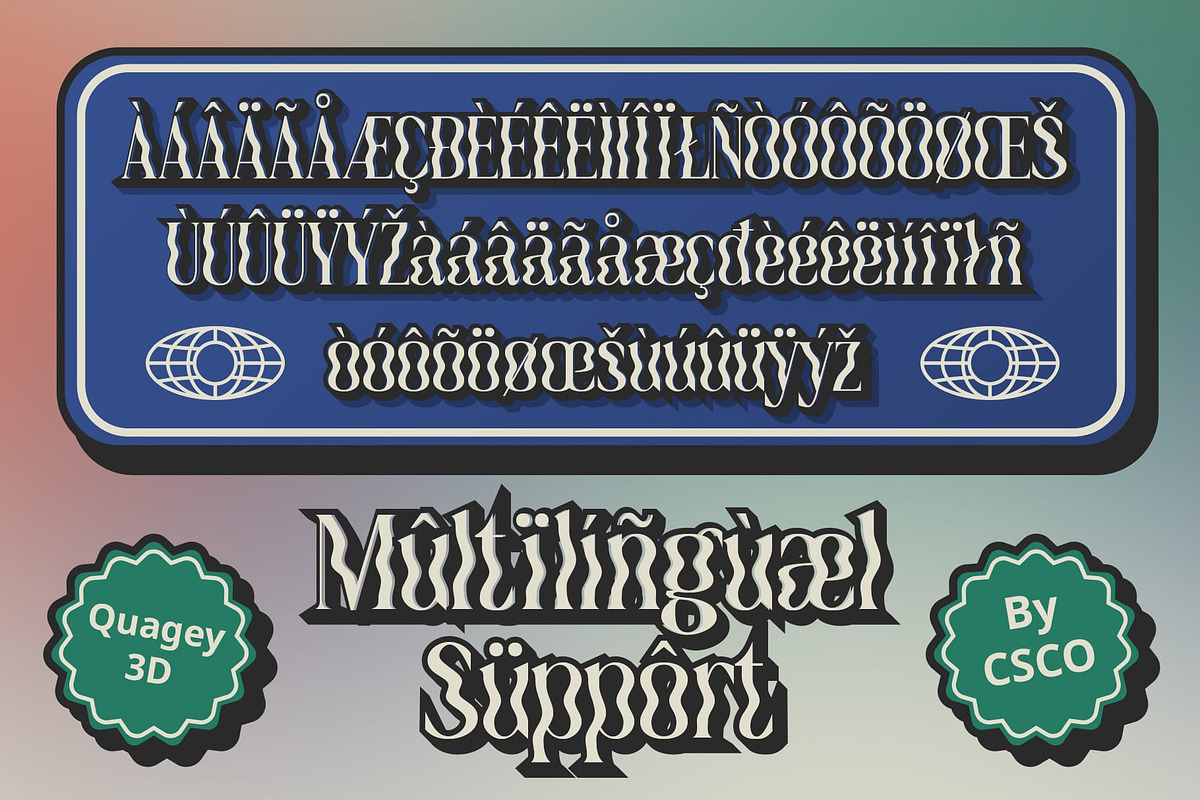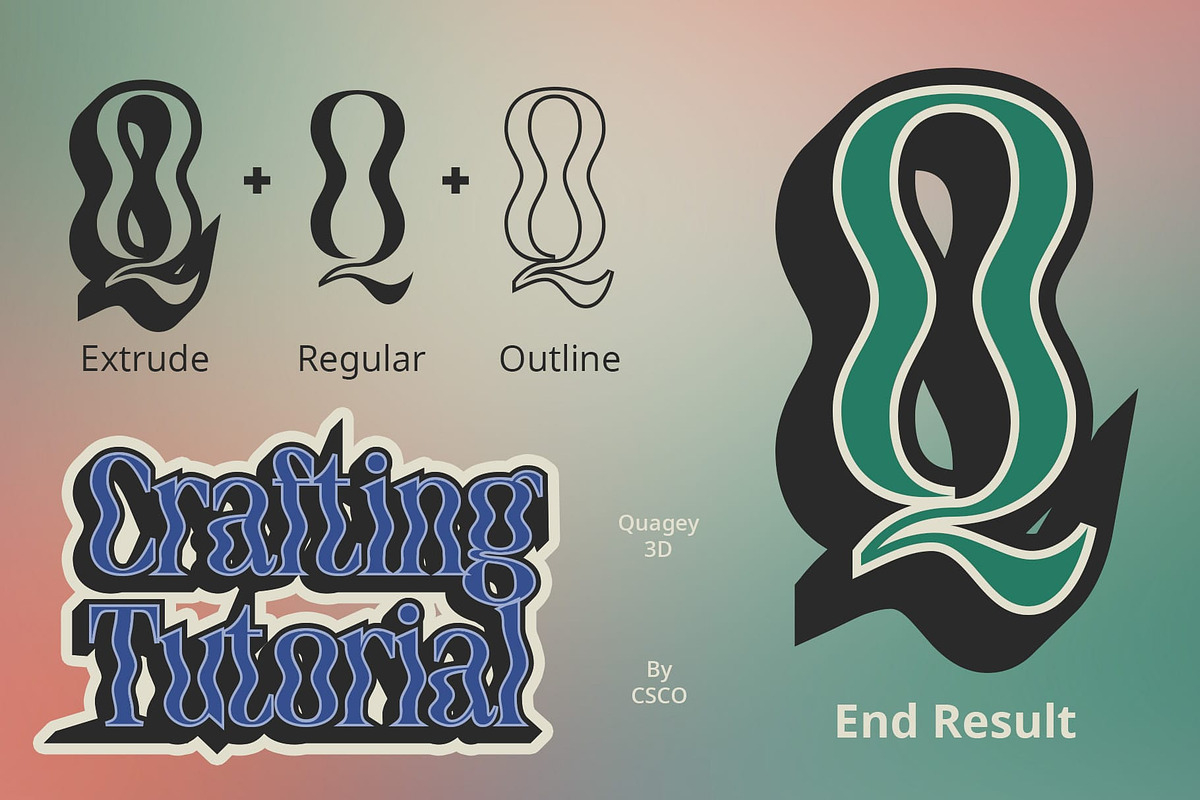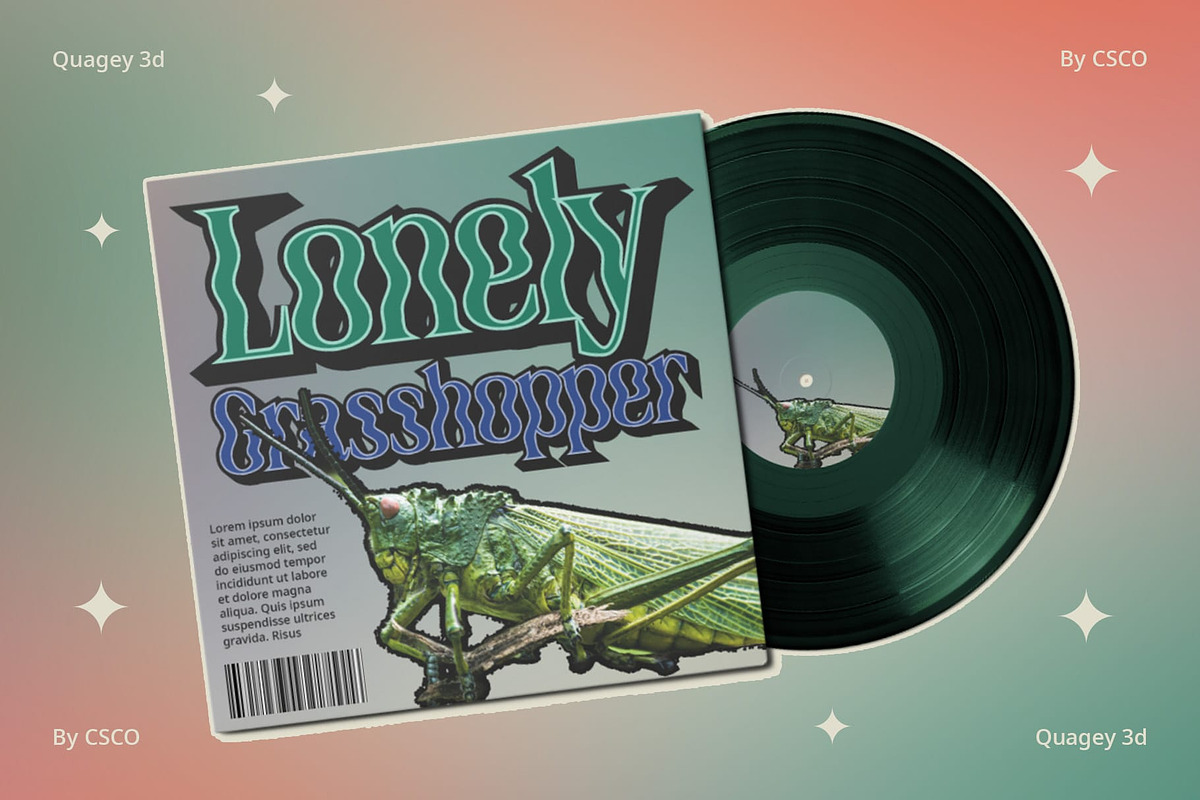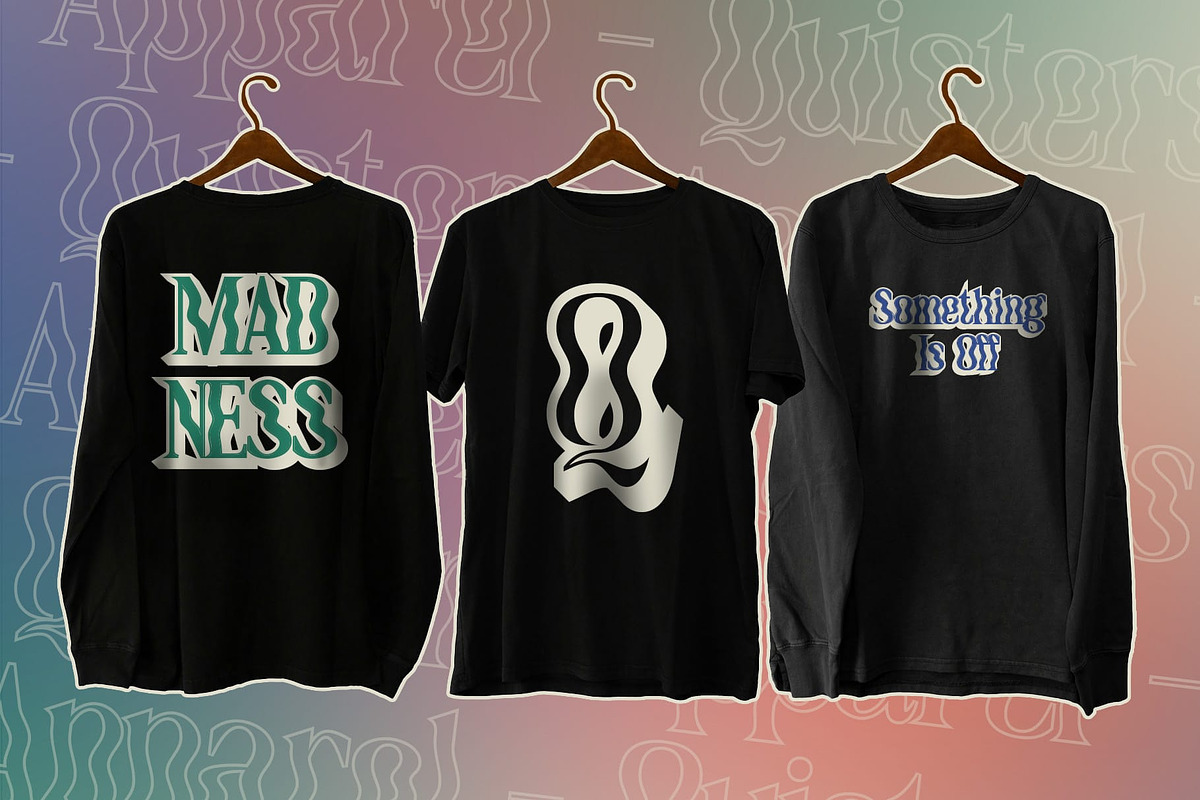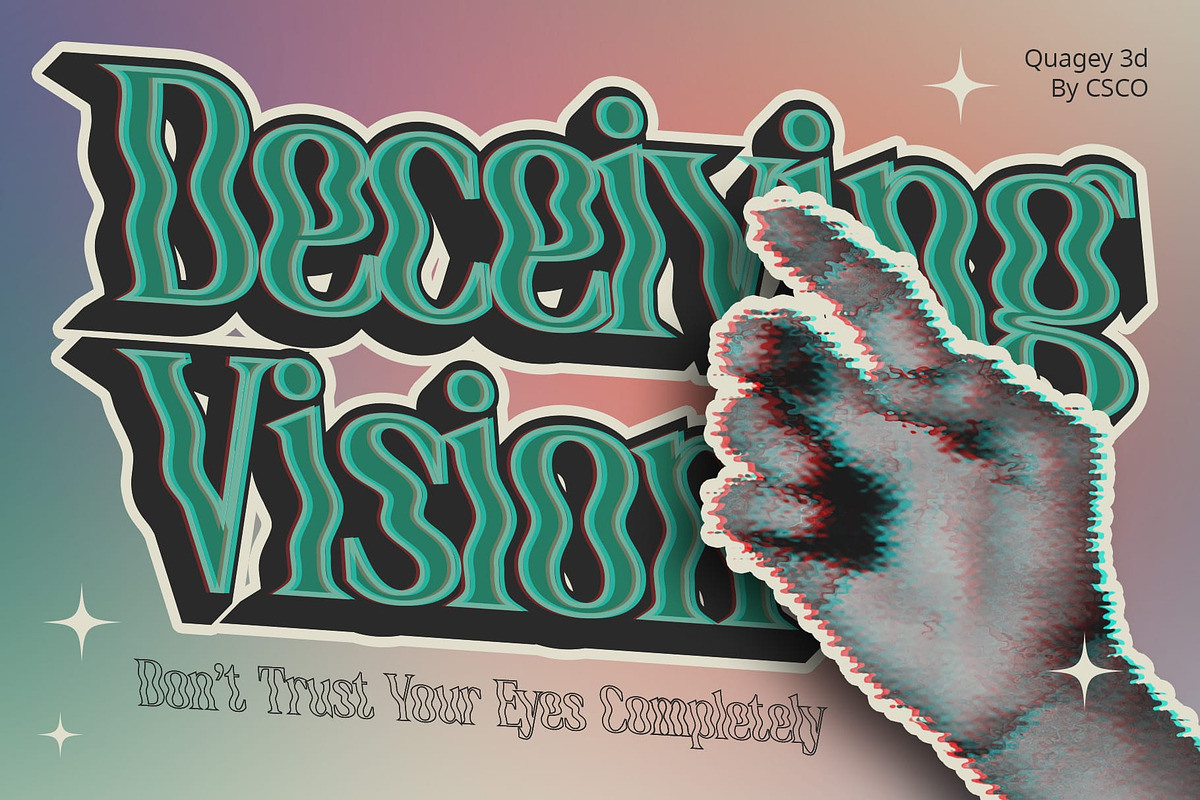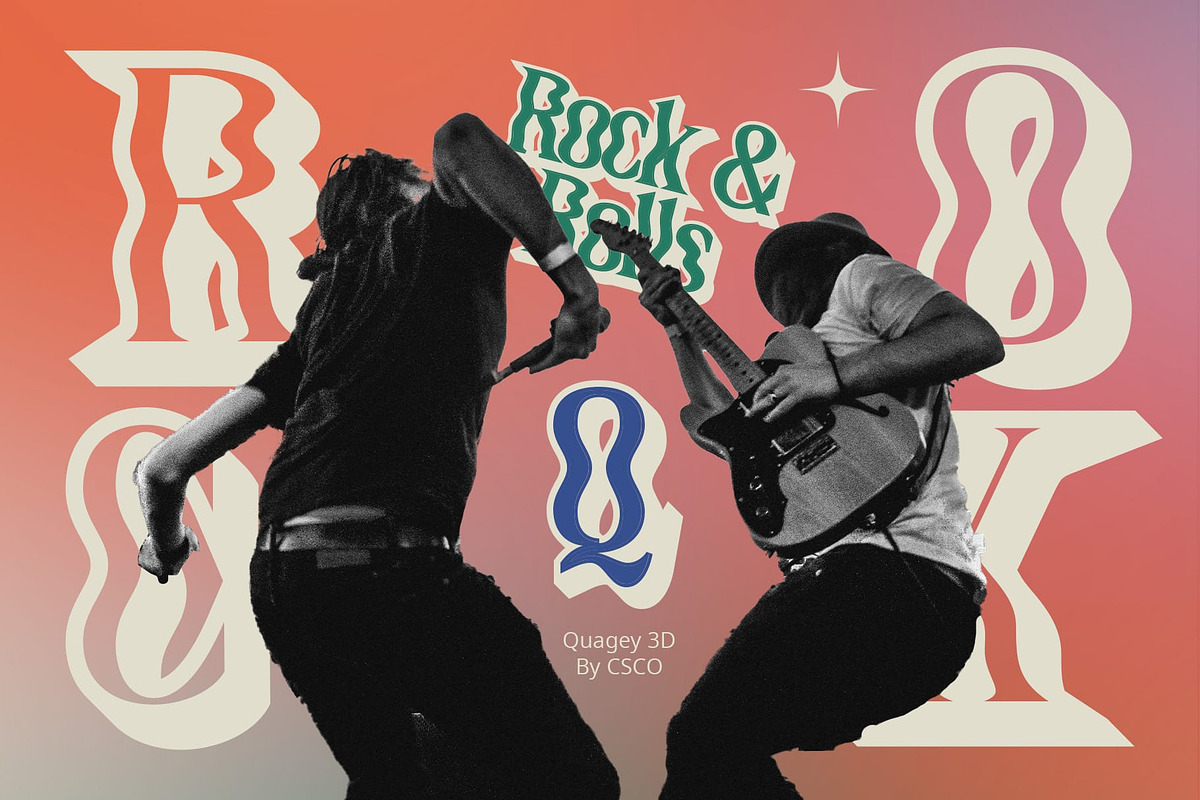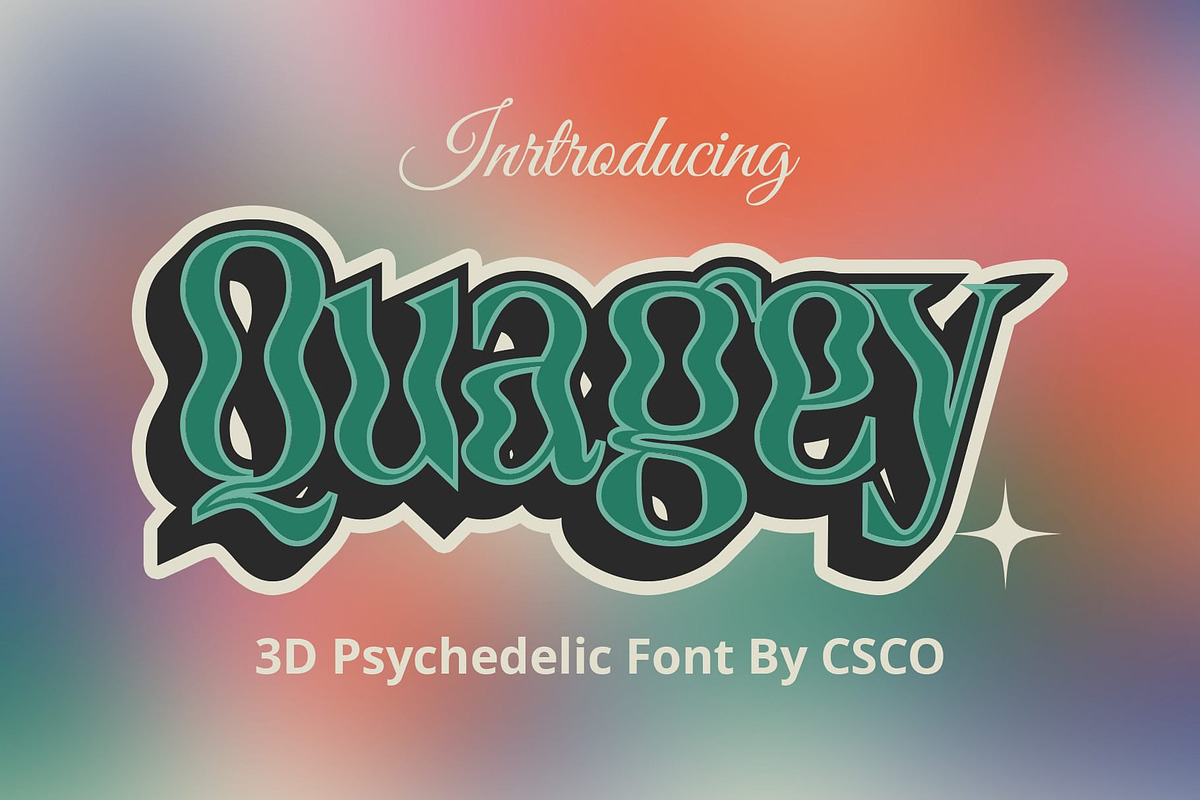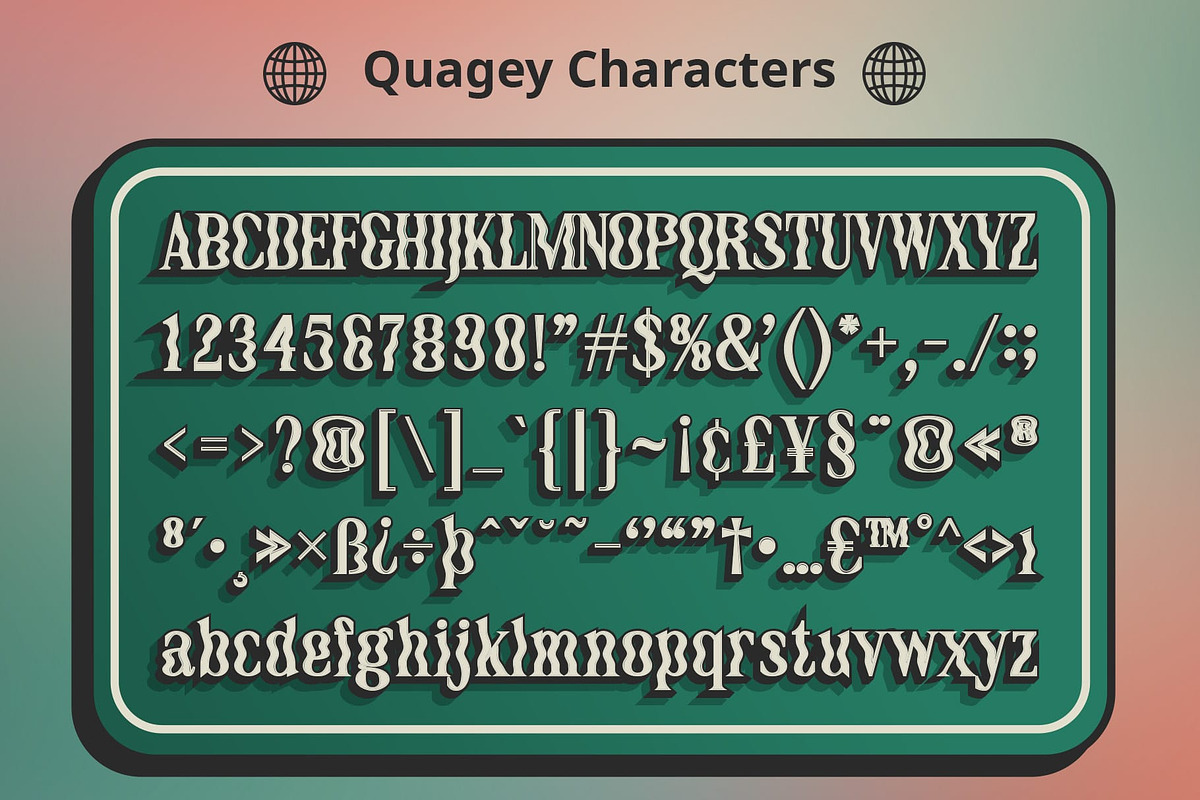
Quagey 3D
Quagey 3D: Embracing Psychedelic Display Typography
Embracing Psychedelic Vibes Quagey 3D embodies the essence of psychedelic design, drawing inspiration from trippy visual display. Its bold and vibrant presence captures attention and invites viewers into a mesmerizing journey.
Innovative Design Elements With a fusion of outline and extrude effects, This font pushes the boundaries of display typography. Each character pulsates with energy, creating an immersive experience that defies traditional design norms.
Perfect for Eye-catching Displays Tailored for eye-catching displays, This font excels in various contexts, from event posters to digital artworks. Its psychedelic allure adds a captivating touch to any project, ensuring maximum impact and engagement.
Versatility in Application Beyond its trippy aesthetic, This font offers versatility in application. Whether used in music festivals, album covers, or promotional materials, its dynamic design adapts effortlessly to diverse creative needs.
Psychedelic Journey This font invites users on a psychedelic journey through its innovative display typography. With its trippy inspiration and dynamic effects, it captivates audiences and injects a dose of visual excitement into any project. Dive into the world of Quagey 3D and unleash your creativity with its mesmerizing design possibilities.